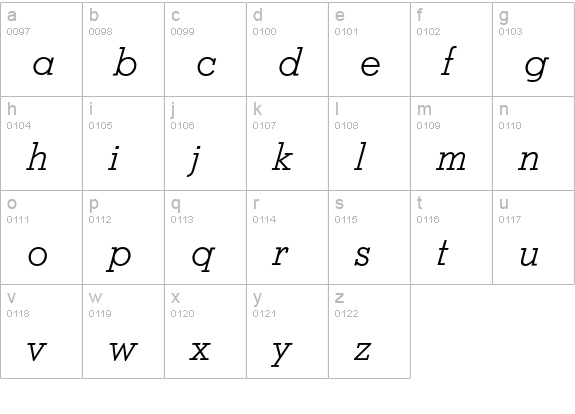
Stymie Light Italic is a refined, elegant, italic variant in the Stymie typeface family \xE2\x80\x94 well suited to elegant body text, refined sub-headings, and luxury branding.
Stymie Light Italic font is a sleek and elegant typeface that exudes sophistication and modernity. Its delicate curves and slanted design create a sense of movement and grace, making it perfect for adding a touch of style to any project. The light weight of the font adds a subtle and refined touch to your text, making it ideal for conveying a sense of elegance and sophistication. And the best part? Stymie Light Italic font is available for free download at FontsMarket.com, allowing you to easily access this beautiful typeface and enhance your designs with its unique charm. Whether you're working on a professional project or a personal creative endeavor, Stymie Light Italic font is sure to elevate your typography and make a lasting impression. Download it today and discover the endless possibilities this stunning font has to offer.